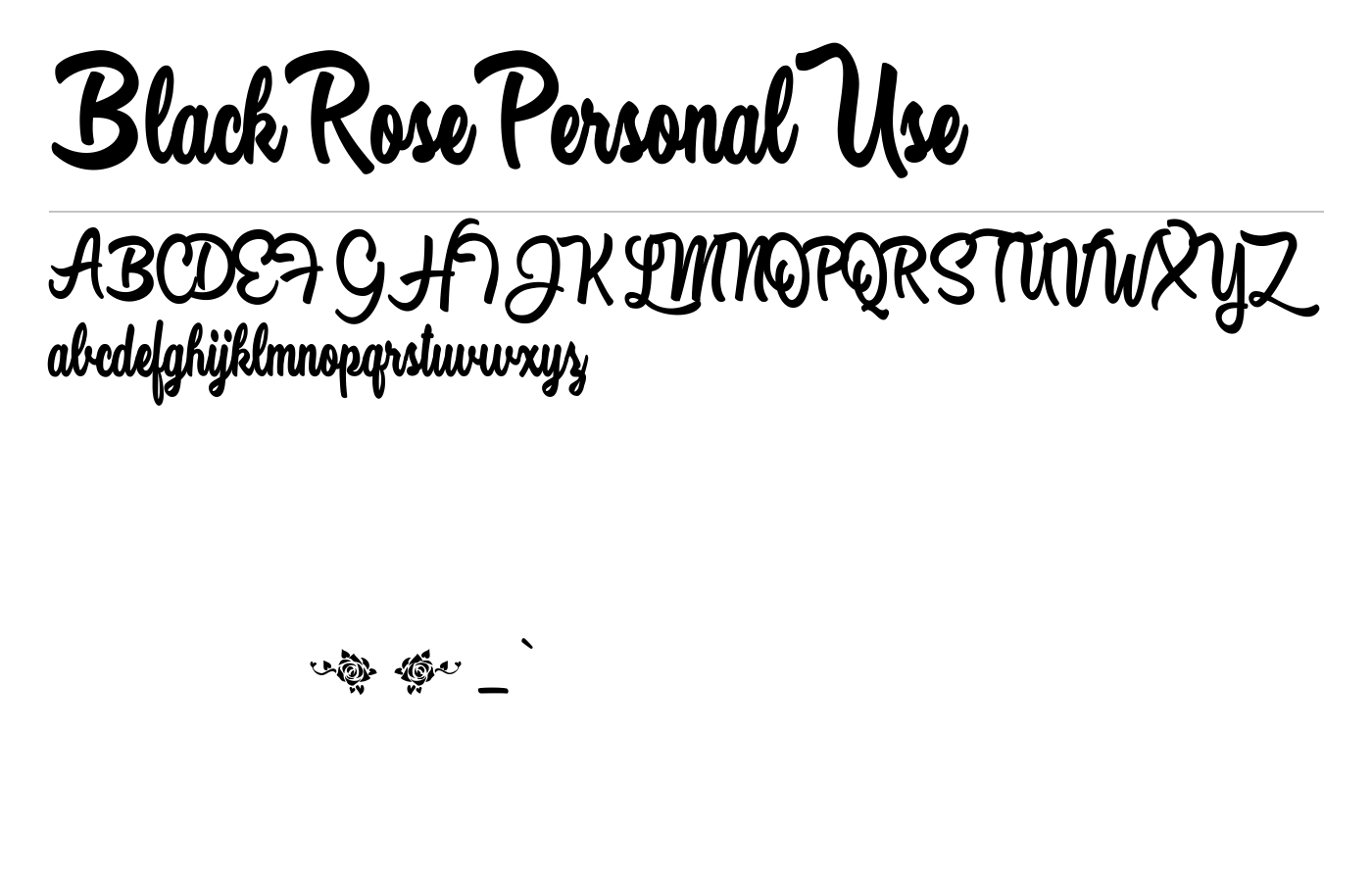
Black Rose Personal Use is a bold, playful script font with a casual handwritten style that flows smoothly with connected lowercase letters and distinctive, looping uppercase characters. Its thick strokes and lively curves convey a friendly, approachable feel, making it perfect for use in creative projects, logos, invitations, and branding that seeks a personal, informal charm. This font stands out best in headlines and decorative text where personality and warmth are key.
Black Rose Personal Use Font
About Black Rose Personal Use Font
| Font family | Black Rose Personal Use Font |